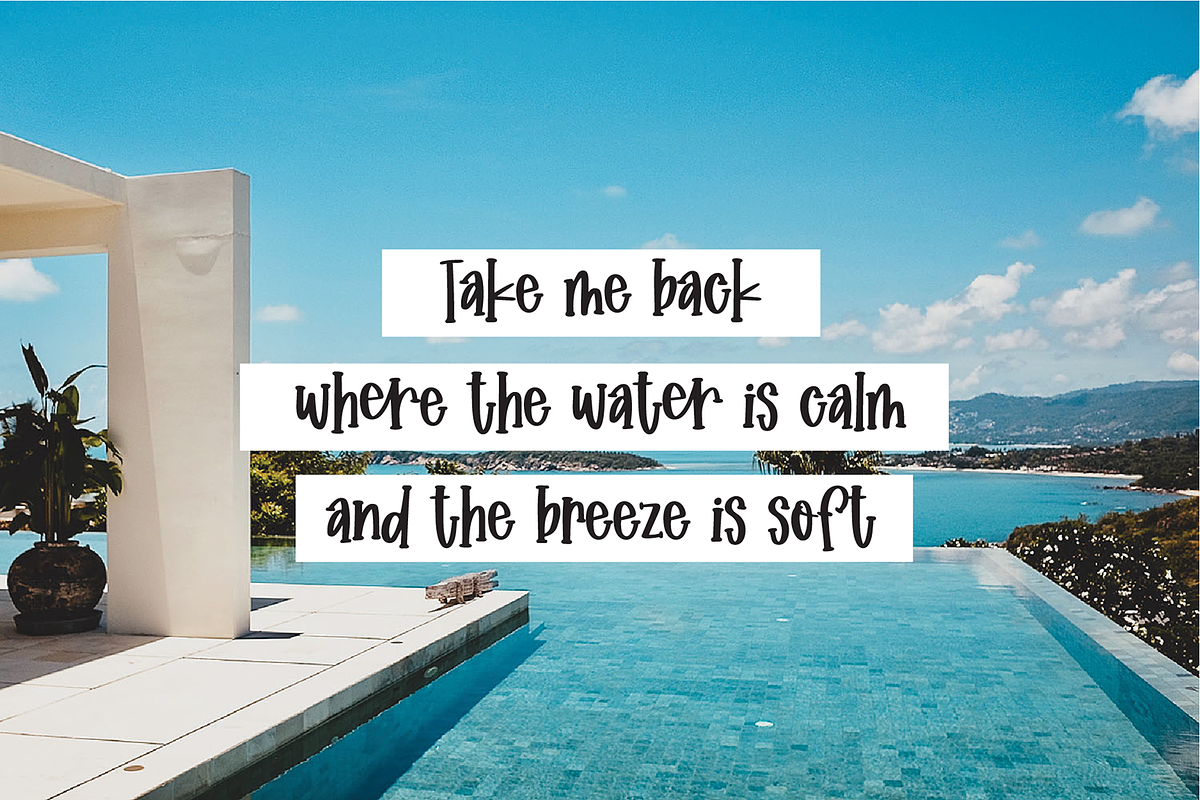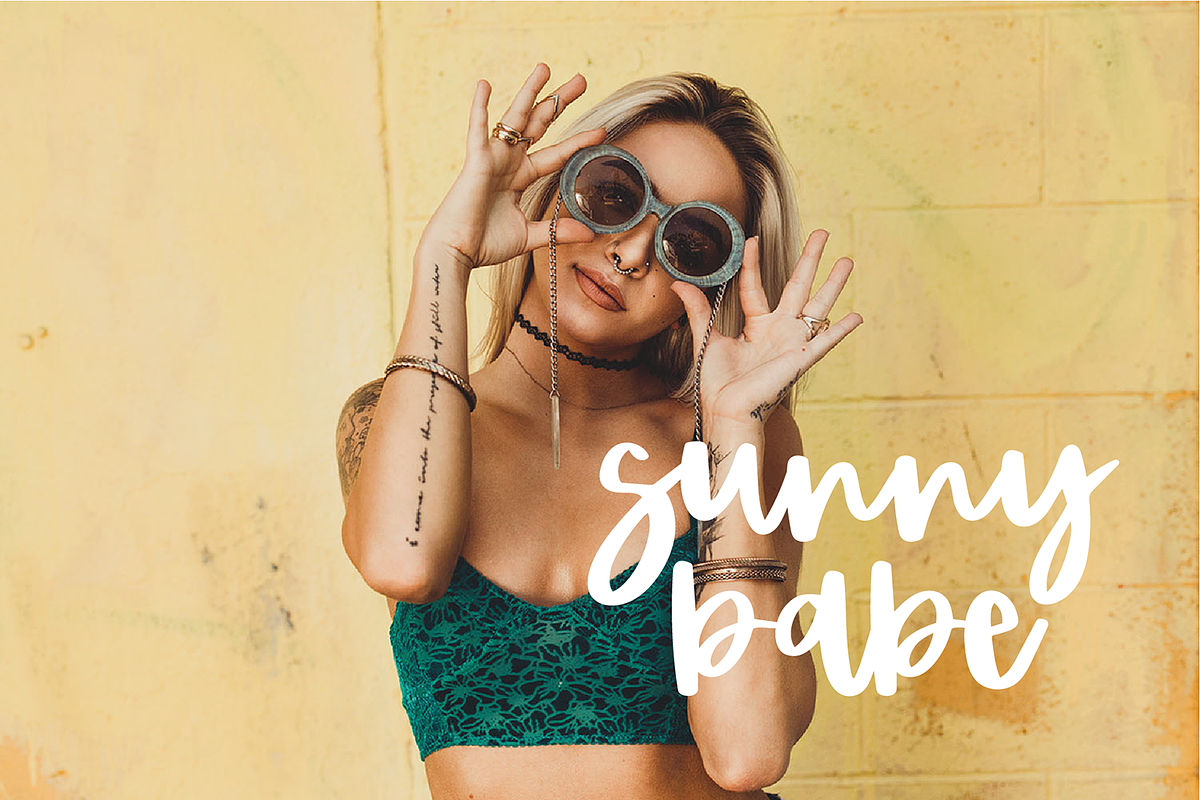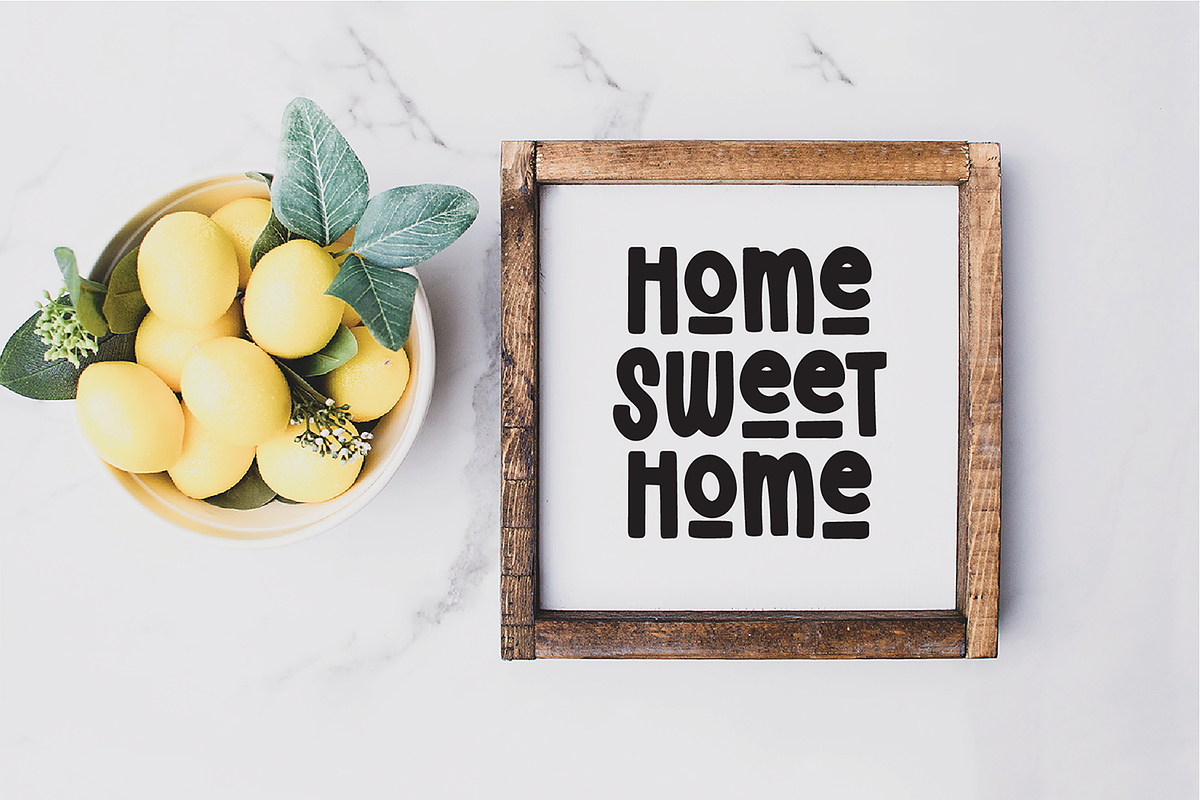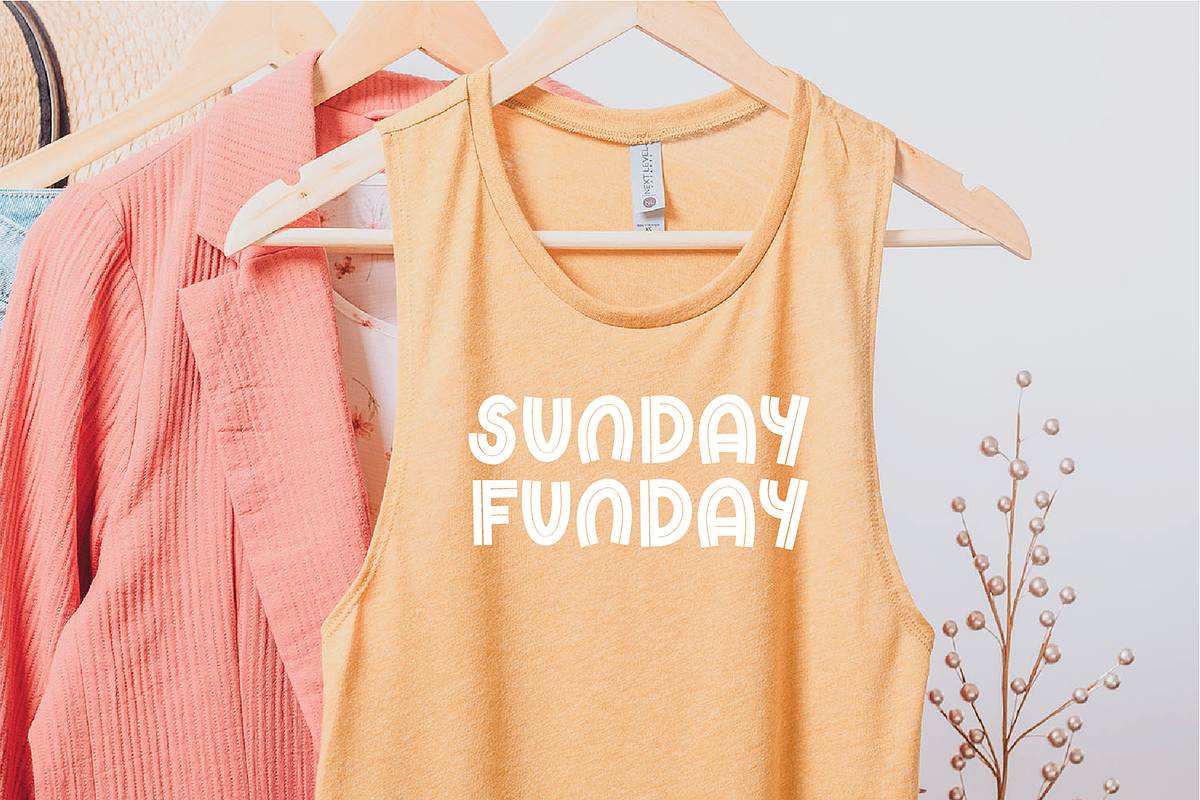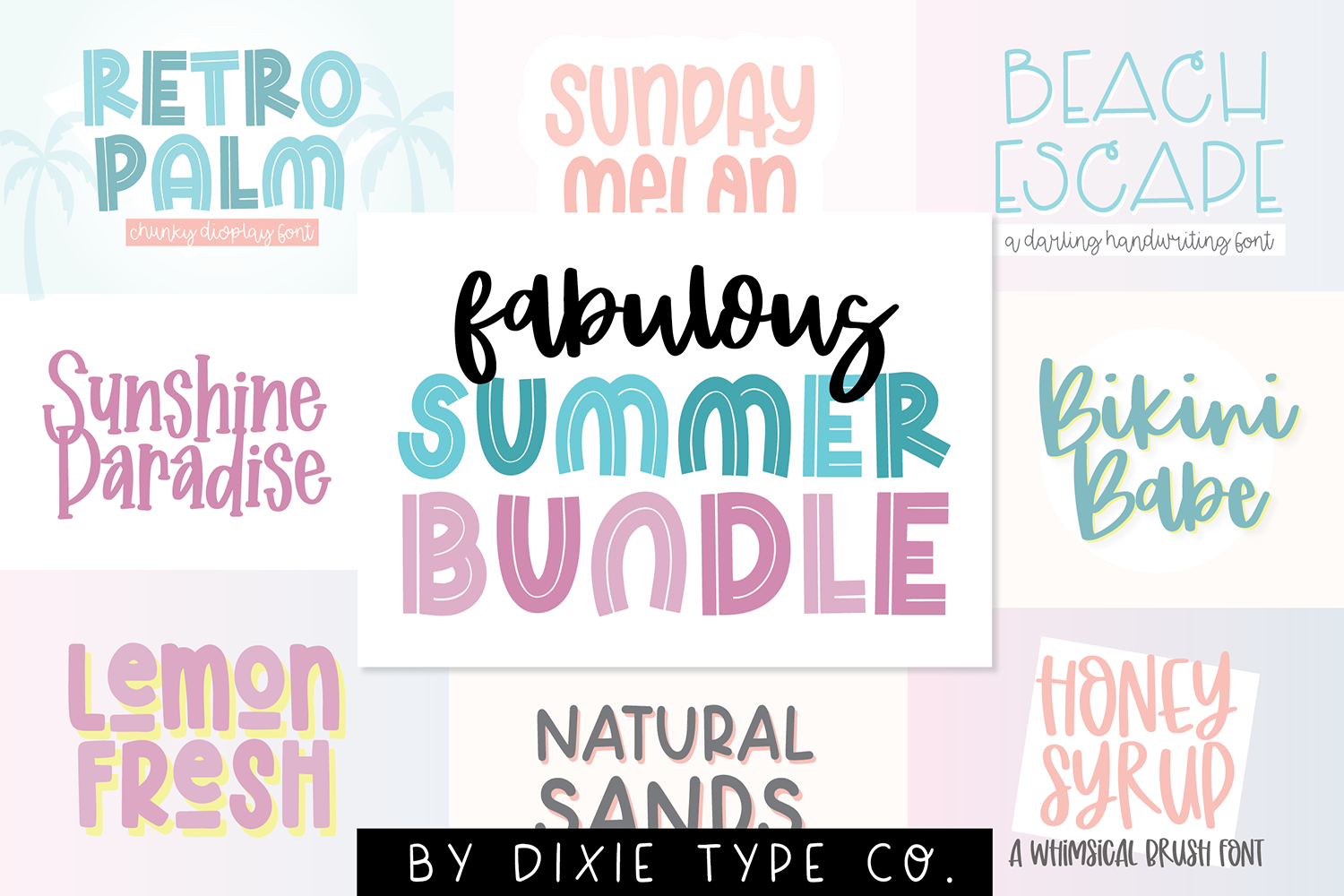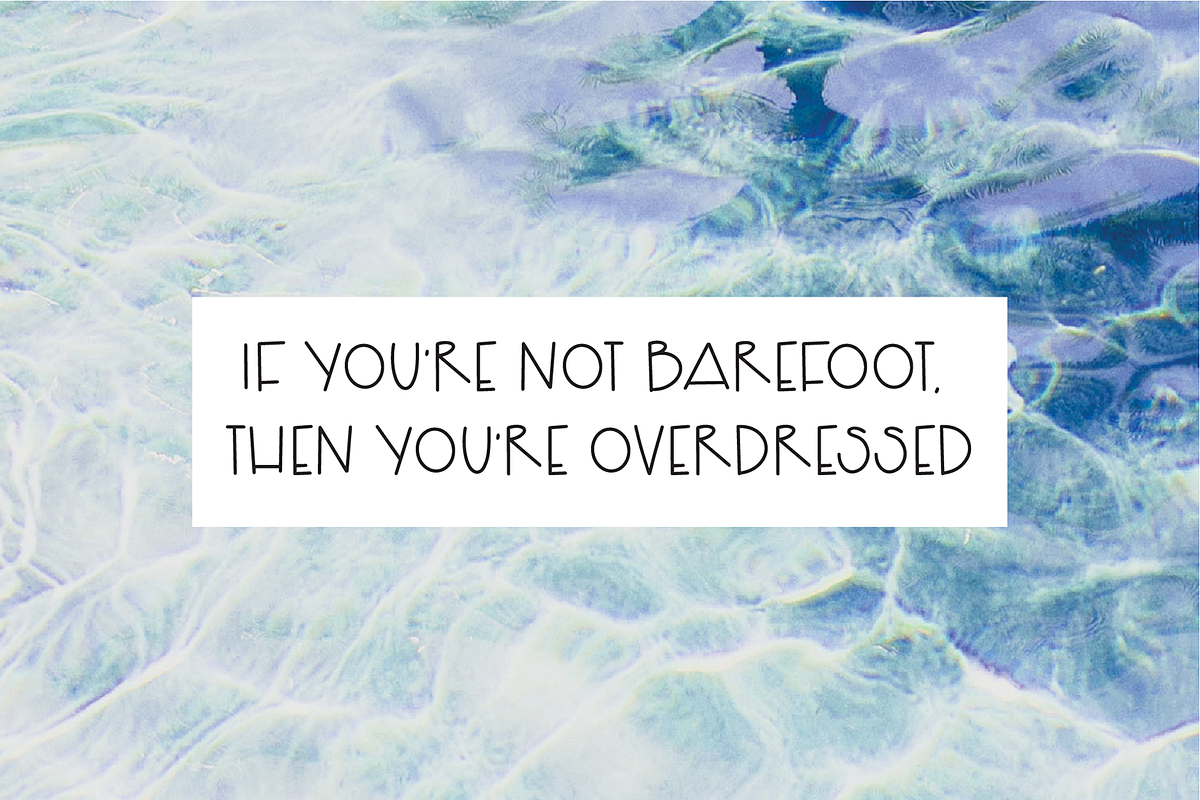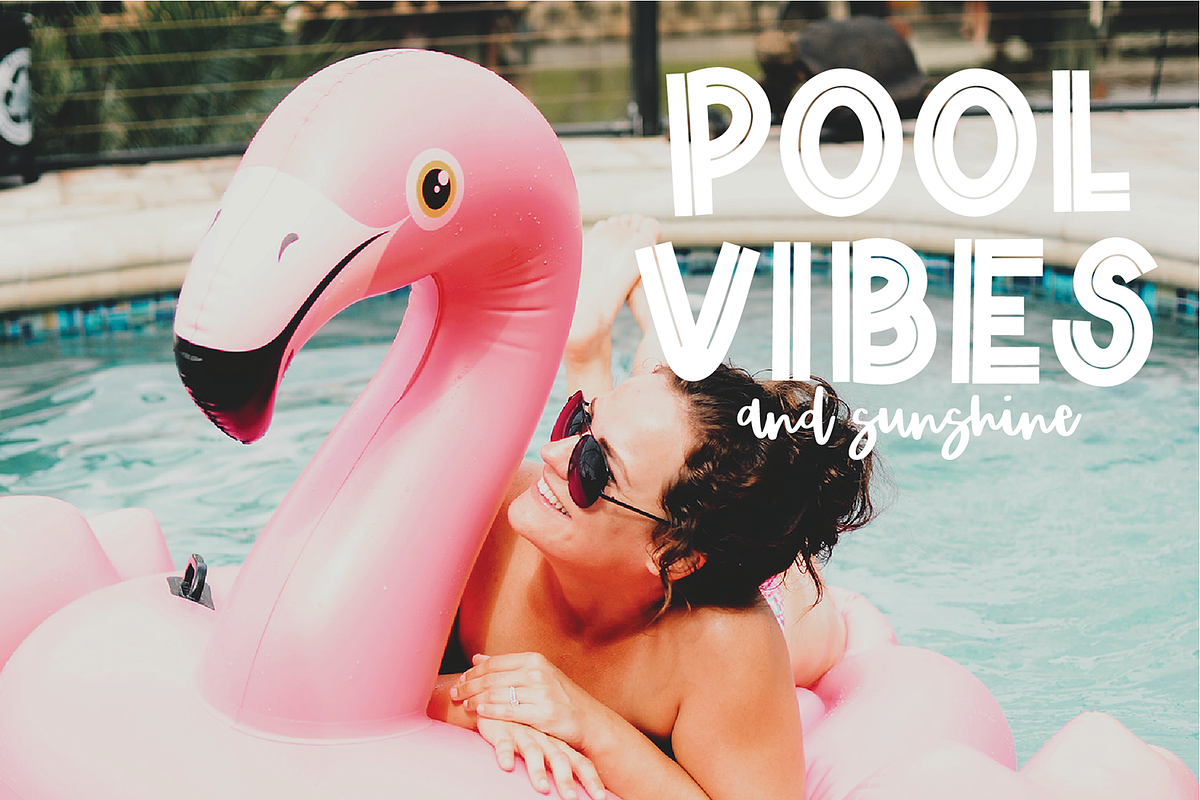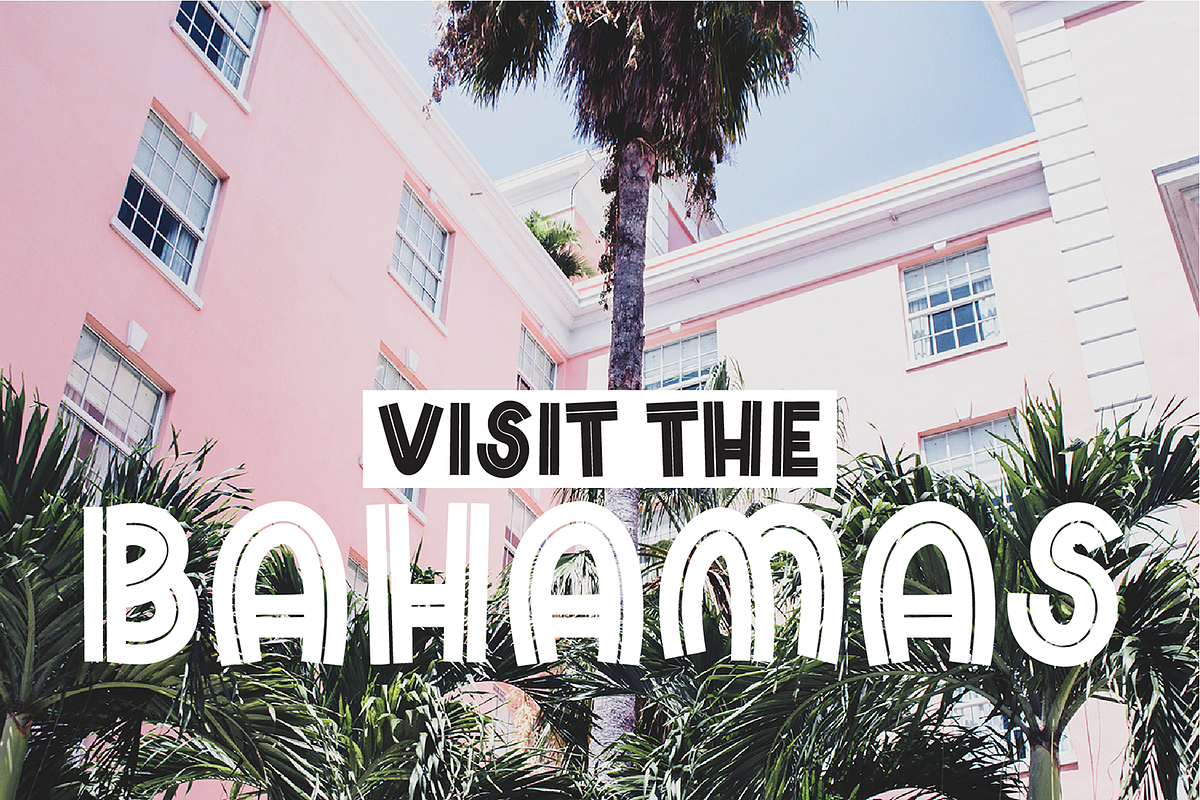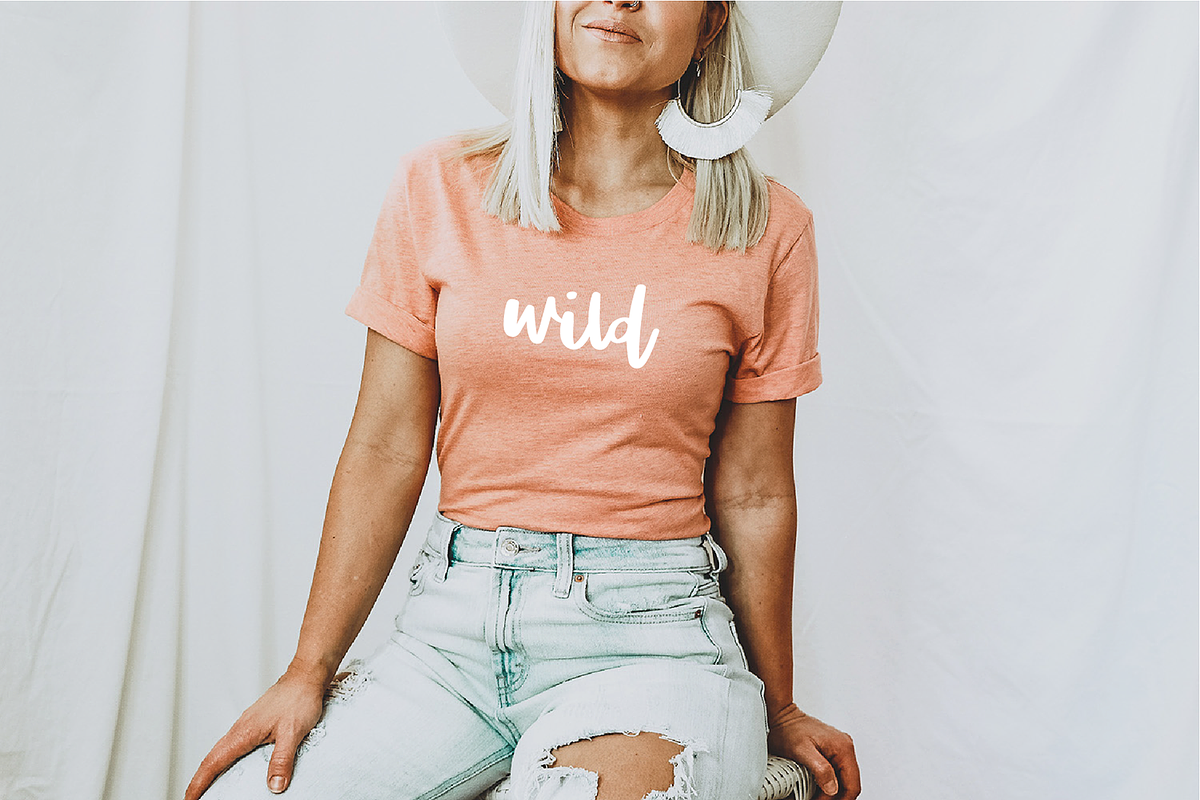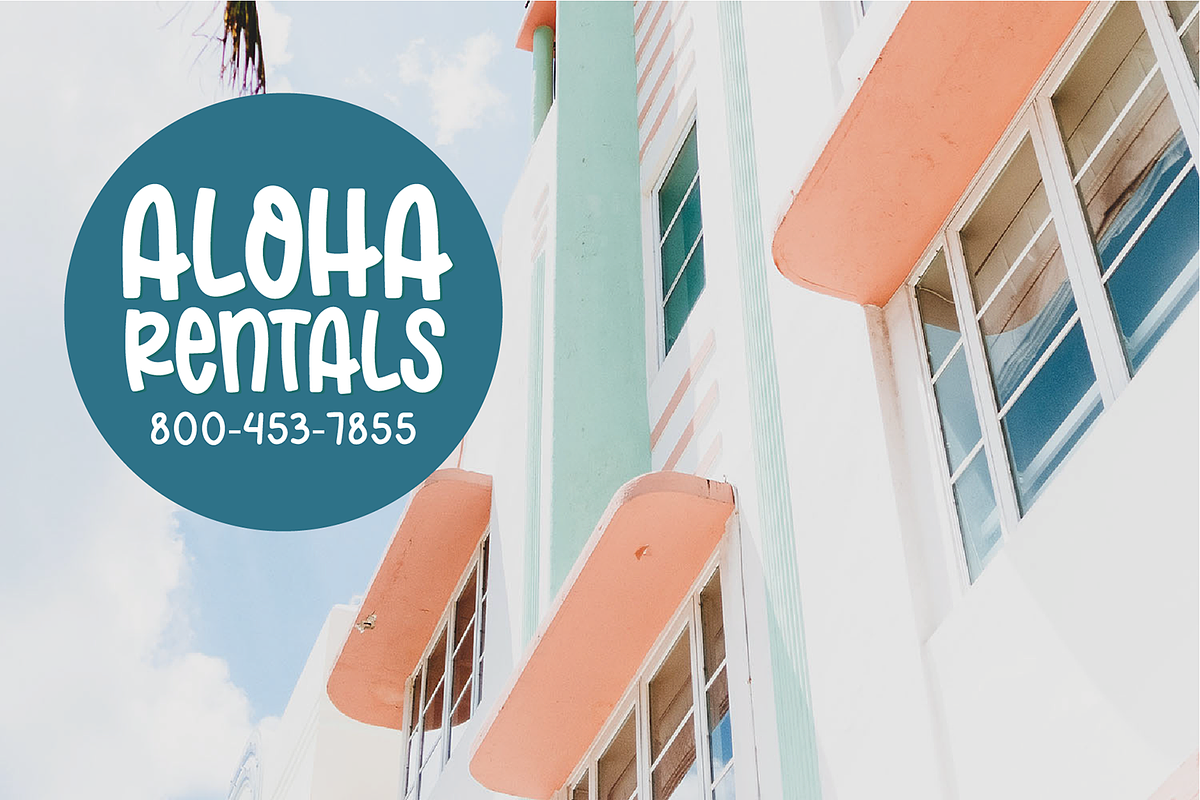
FABULOUS SUMMER FONT BUNDLE
FABULOUS SUMMER BUNDLE
These fonts were all hand-lettered with a brush and ink, or iPad Pro.The 8 fonts included are:
RETRO PALM BIKINI BABE SUNDAY MELON BEACH ESCAPE SUNSHINE PARADISE HONEY SYRUP NATURAL SANDS LEMON FRESH